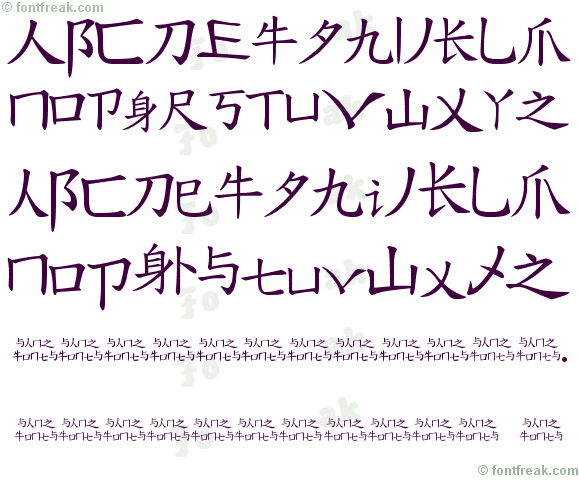
Message from the East
"Message from the East" by Ihsan Hasanudin is a decorative font that draws inspiration from traditional Chinese calligraphy, offering a unique blend of cultural richness and artistic flair. As a freeware font, it provides accessibility for a wide range of projects. This font features a playful yet legible design, characterized by its uneven stroke weights and fluid curves, which evoke the essence of handwritten scripts. The characters exhibit a moderate contrast in thickness, creating a dynamic visual appeal, while the spacing between letters is balanced, allowing for comfortable reading.
This font is ideal for various creative applications. It shines in contexts such as wedding invitations, where its elegant style can convey a sense of sophistication and romance. Additionally, it is well-suited for restaurant menus, particularly those that emphasize Asian cuisine, as it resonates with the cultural theme. Movie posters that seek to evoke mystery or adventure can also benefit from the distinct character of this font. Furthermore, it can be effectively used in digital content, such as social media graphics or blog headers, appealing to content creators who wish to capture their audience's attention.
The target audience for "Message from the East" includes graphic designers looking for unique typefaces, small business owners who want to infuse cultural elements into their branding, and content creators in need of distinctive fonts for their projects. The versatility and charm of this font make it a valuable addition to any designer's toolkit.
What truly sets the "Message from the East" font apart is its ability to transport viewers to a different cultural landscape while maintaining clarity and usability. Its artistic flair combined with accessibility makes it an excellent choice for those seeking a font that stands out. For those interested, the "Message from the East font free download" is readily available, inviting everyone to explore its unique visual narrative.